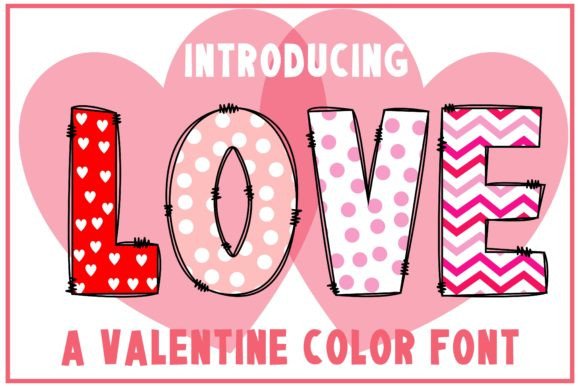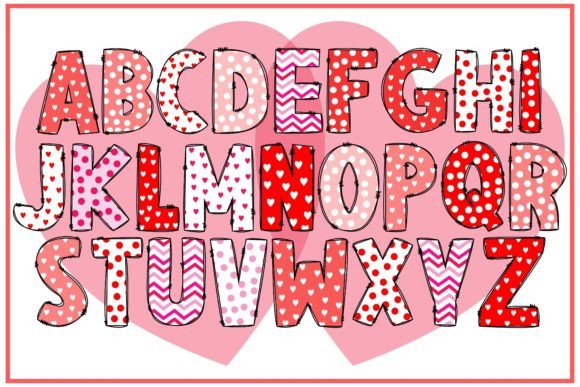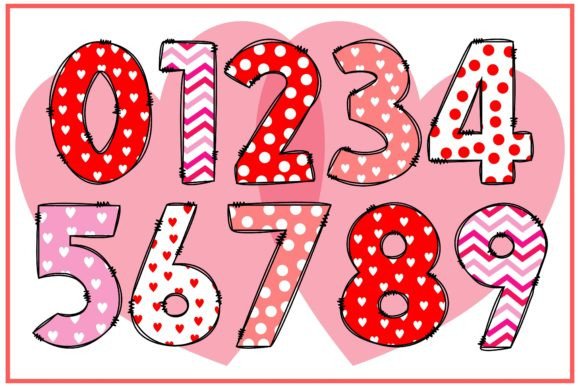
Love Font
About Love Font
Love is a captivating and intricate color font that adds a touch of creativity and whimsy to your designs. With its mixed and whimsical lettering style and a vibrant red/pink color palette, Love font is perfect for a wide range of projects.
The complex and cool design of Love font makes it stand out and adds a unique visual appeal to your designs. Whether you’re working on posters, invitations, social media graphics, or any other creative project, Love font will bring a sense of playfulness and artistic flair.
The mixed lettering style of Love font adds a dynamic and energetic element to your text. Each letter is carefully crafted with various shapes, curves, and swirls, creating an eye-catching and visually interesting composition. The combination of different letterforms adds depth and complexity, making Love font truly captivating.
The red/pink color palette of Love font enhances its romantic and vibrant vibe. The colors evoke feelings of love, passion, and excitement, making Love font an excellent choice for projects related to relationships, celebrations, or any design that aims to convey a sense of emotion and warmth.
With Love font, you have the flexibility to experiment and create unique compositions. The whimsical lettering allows you to play with different arrangements, overlapping letters, or combining them with other design elements to achieve a truly personalized and artistic result.
Embrace the complexity and coolness of Love font in your designs, and let its unique style and vibrant colors make a statement. Whether you’re working on personal projects, branding, or promotional materials, Love font will add a touch of creativity and flair that is sure to captivate your audience. Let Love font be the centerpiece of your designs and express your artistic vision with its playful and captivating letterforms.